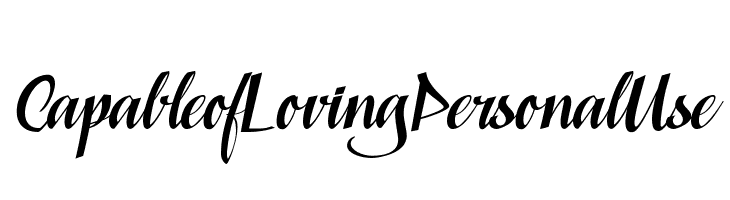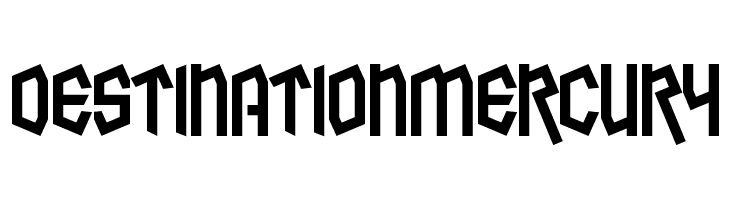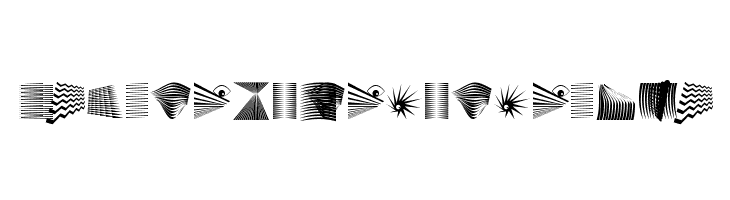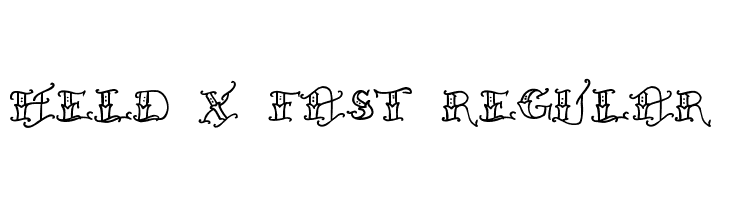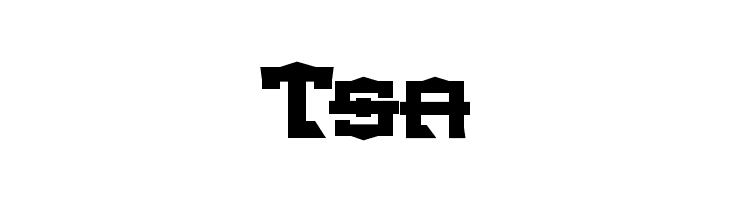
( Billy Argel - billyargel.com/ )
A dynamic, cursive script font with elegant curves and calligraphic style.
( Fonts by Morice Kastoun )
A modern, geometric font with rounded edges and consistent stroke width.
( Fonts by Génesis Toxical )
A playful, hand-drawn font with a whimsical and friendly style.
( JoeeCreative - Joe Creative - creativemarket.com/JoeeCreative )
A bold, flowing script font with a modern, handwritten style.
A bold, futuristic font with a leftward slant and angular design.
A bold serif font with strong strokes and classic elegance.
( Fonts by Creatype Studio )
A decorative font with a hand-drawn, textured style and whimsical flair.
A bold, geometric font with an industrial and futuristic style.
( Fonts by Chequered Ink )
A bold, angular font with a futuristic and geometric design.
( Fonts by Nurul Kamal )
A playful and elegant script font with a handwritten style.